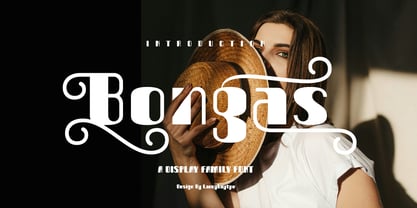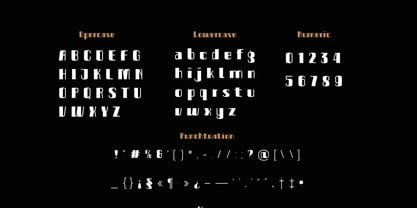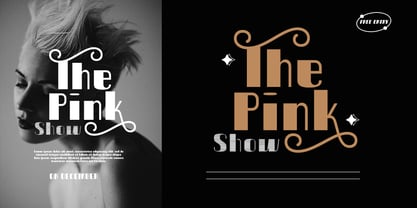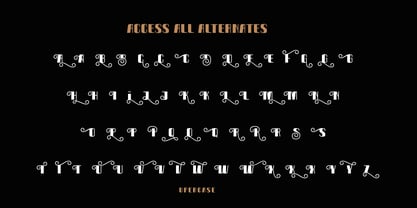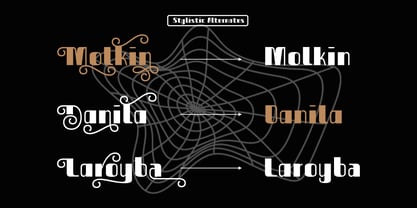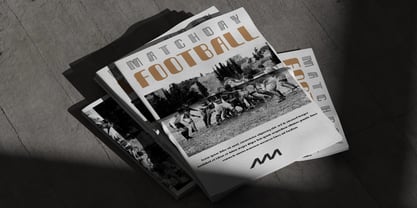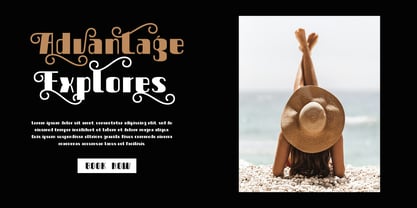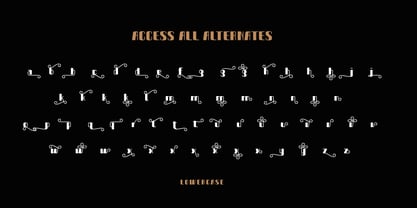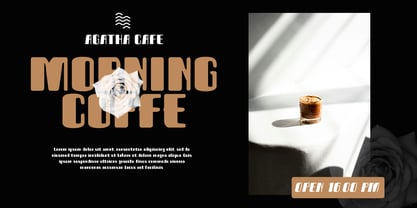
Bongas
La familia tipográfica Bongas fue diseñada por Habib Abdur Rofi y publicada por Laroyba Type. Bongas contiene 6 estilos y opciones de paquete familiar. Más información sobre esta familia
Bongas – Display Family
Meet Bongas, a display font family that captivates with the beauty of its bold and thin line contrasts, creating visual harmony. Designed with meticulous attention to detail, it features unique, mesmerizing curves in every alternate, adding a distinctive touch to all your designs.
Key Features:
• Bold & Thin Contrast: A stunning combination of bold and thin strokes that strikes a balance between elegance and strength.
• Unique Alternate Curves: Bongas is equipped with artistic alternates, adding a luxurious and personal feel to your designs.
• Various Styles: Enjoy complete flexibility with styles including regular, italic, outline, blur, and shaded (arsir), perfect for all your design needs.
Versatile for All Designs
Bongas is the ideal solution for various types of design projects:
• Branding & Logos: Showcase a bold and elegant brand identity.
• Posters & Social Media: Create headlines that grab attention.
• Packaging & Invitations: Add a captivating aesthetic touch to your products.
• Any Design You Need: Bongas' appearance ensures your designs will stand out.
With multilingual support, Bongas is ready to become your creative tool for reaching a global audience. Its unique details make it not just a choice but an investment for creating more characterful and impactful designs.
Transform your creative projects with Bongas, a font that perfectly balances boldness and elegance. Make every design truly unforgettable!